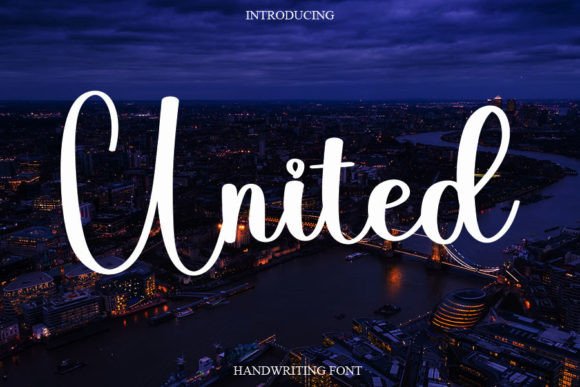
Journey into the world of United Font, a captivating handwritten script font that will ignite your creativity and leave an indelible mark on your designs.
Unleash the beauty of your words with United Font, a mesmerizing handwritten script font that exudes elegance and sophistication. Crafted with the utmost care by the skilled artisans at Harlek Studio, United Font is a masterpiece that will elevate your projects to new heights.
Step into a world of flowing lines and graceful curves, where each letter dances along the baseline with a captivating rhythm. United Font's enchanting characters will add a touch of luxury and charm to any design project, whether it's a stunning signature logo, an eye-catching poster, or an unforgettable invitation.
With United Font, you hold the power to transform your creative visions into breathtaking realities. Let your imagination soar as you craft logos that exude professionalism, posters that ignite passion, and invitations that evoke a sense of timeless elegance. The possibilities are endless, limited only by the boundaries of your creativity.
United Font is more than just a font; it's an experience that will captivate your audience and leave them spellbound. Its versatility knows no bounds, adapting seamlessly to a multitude of design styles, from classic and timeless to modern and edgy.
Embrace United Font and embark on a creative journey that will leave an indelible mark on the hearts and minds of your audience. Let your designs shine with a touch of sophistication and elegance, and watch as your projects come alive with the magic of United Font.